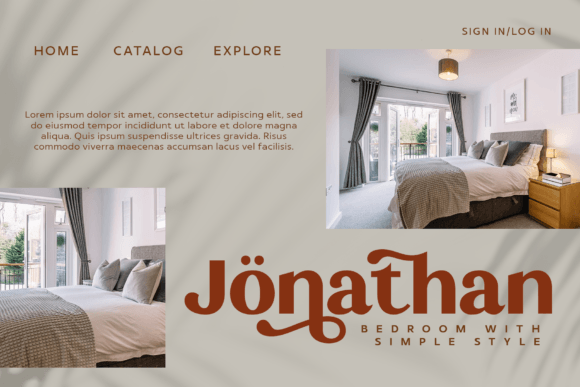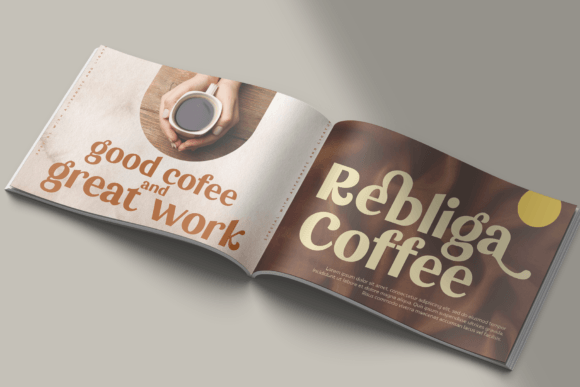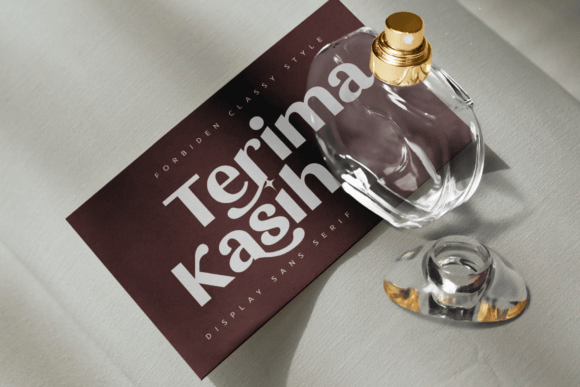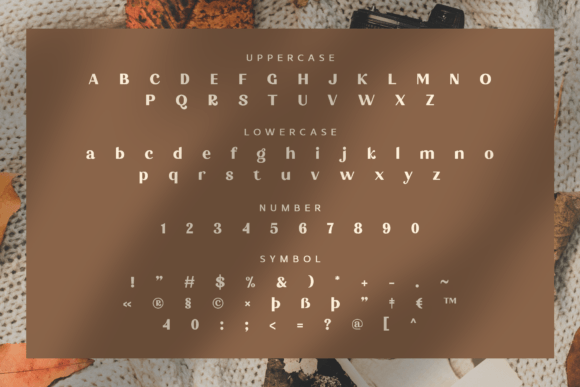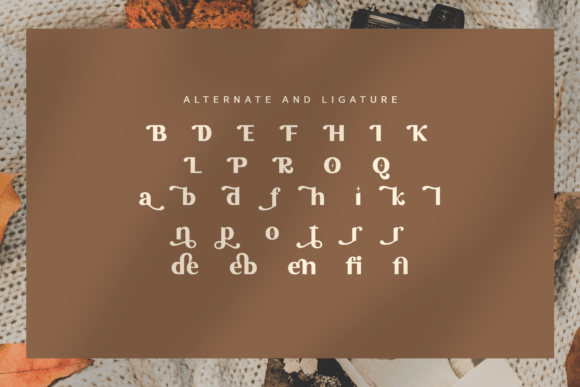
Discover the Elegance of Forbiden Font: A Classic Sans Serif Display Font
In the world of typography, fonts play a crucial role in conveying the tone and personality of a brand or design. For designers and crafters, finding the perfect font that exudes elegance and sophistication can be a daunting task. However, if you’re looking for a classic sans serif display font that can elevate your designs, look no further than Forbiden Font.
What is Forbiden Font?
Forbiden Font is a timeless and versatile sans serif display font that boasts a classic look, making it perfect for a wide range of design projects. Its clean lines, precise curves, and balanced proportions make it an excellent choice for designers seeking a font that exudes sophistication and elegance.
Key Features of Forbiden Font
- Classic Sans Serif Design: Forbiden Font features a classic sans serif design that is both elegant and timeless.
- Display Font: This font is specifically designed as a display font, making it perfect for headlines, titles, and other attention-grabbing elements.
- Multiple Alternatives: Forbiden Font comes with several alternative styles, allowing designers to experiment with different looks and find the perfect fit for their project.
- High Versatility: This font is suitable for a wide range of design projects, from branding and logos to wedding designs, social media posts, and product packaging.
Use Cases for Forbiden Font
Forbiden Font is an incredibly versatile font that can be used in various design projects, including:
- Branding Projects: Create a lasting impression with Forbiden Font, perfect for logos, business cards, and brand guidelines.
- Wedding Designs: Add a touch of elegance to wedding invitations, stationery, and decorations with this beautiful font.
- Social Media Posts: Elevate your social media presence with eye-catching graphics and captions featuring Forbiden Font.
- Advertisements: Grab attention with bold and classy headlines, perfect for print or digital ads.
- Product Packaging: Make your product stand out with beautiful labels and packaging designs featuring Forbiden Font.
- Labels and Photography: Use Forbiden Font to add a professional touch to product labels, watermarks, and photography.
- Invitations and Stationery: Create beautiful and elegant invitations, stationery, and greeting cards with this versatile font.
Why Choose Forbiden Font?
With so many fonts available, why choose Forbiden Font? Here are a few compelling reasons:
- Unique and Timeless Design: Forbiden Font boasts a classic design that will never go out of style.
- Elegant and Sophisticated: This font exudes elegance and sophistication, perfect for designers seeking a high-end look.
- Highly Versatile: Forbiden Font can be used in a wide range of design projects, making it a valuable addition to any designer’s toolkit.
- Easy to Read: The clean lines and balanced proportions of Forbiden Font make it easy to read, even at smaller sizes.
In conclusion, Forbiden Font is a classic sans serif display font that offers elegance, sophistication, and versatility. With its timeless design, multiple alternative styles, and high versatility, this font is perfect for designers and crafters seeking a font that can elevate their designs. Whether you’re working on branding projects, wedding designs, or product packaging, Forbiden Font is an excellent choice. So why wait? Discover the elegance of Forbiden Font and take your designs to the next level.